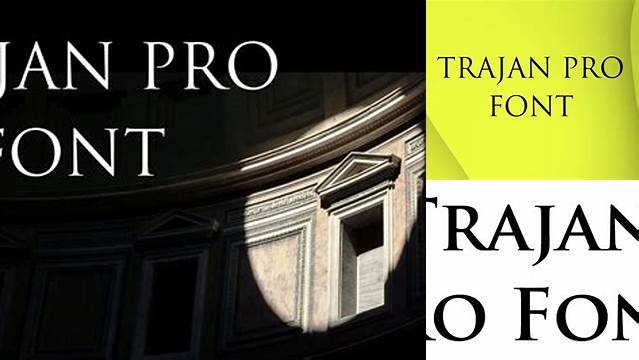
1. What is Trajan Pro Font?
Let's dive into what makes Trajan Pro Font so special, guys! This font isn't just another typeface; it's a piece of art. Inspired by the lettering on the base of Trajan's Column in Rome, designed by Carol Twombly in 1989, Trajan Pro exudes a sense of history, elegance, and authority. Think of it as the Roman Empire in font form! The strong and stately appearance makes it perfect for projects where you need to convey seriousness and importance. You'll often see it in movie posters, book covers, and even corporate branding where a touch of class is crucial. So, whether you're designing a poster for a historical epic or crafting a logo for a prestigious brand, Trajan Pro is your go-to font for making a lasting impression. It's all about capturing that timeless, authoritative feel, and Trajan Pro Font nails it every single time.
2. History and Inspiration Behind Trajan Pro
To really appreciate Trajan Pro Font, it's super important to understand its backstory. It all starts with Trajan's Column in Rome, a monumental structure erected in 113 AD to commemorate Emperor Trajan's victories in Dacia. The inscriptions at the base of the column are renowned for their perfectly proportioned and beautifully carved Roman square capitals. Carol Twombly, the brilliant designer behind Trajan Pro, drew direct inspiration from these ancient letterforms. She meticulously studied the shapes and proportions, translating them into a digital font that captures the essence of the original carvings. This historical connection gives Trajan Pro its unique character – a blend of ancient artistry and modern design. When you use this font, you're not just picking a typeface; you're tapping into centuries of history and craftsmanship. It's like having a piece of the Roman Empire in your design toolkit, perfect for adding a touch of timeless elegance and authority to any project where the goal is to create a memorable and impactful visual statement.
3. Key Characteristics of Trajan Pro Font
Okay, let's break down what makes the Trajan Pro Font stand out from the crowd. First off, it's an all-caps font, meaning it only has uppercase letters. This gives it a formal and commanding presence, perfect for headlines and titles. The serifs – those little feet at the ends of the strokes – are sharp and elegant, adding to its classic feel. The proportions are also key: the letters are wide and well-spaced, making them easy to read and giving them a sense of grandeur. But what really sets Trajan Pro apart is its timeless appeal. It manages to look both ancient and modern at the same time, making it incredibly versatile. Whether you're designing a movie poster, a book cover, or a logo, Trajan Pro can bring a touch of sophistication and authority. It's the kind of font that commands attention without being too flashy, which is why it's a favorite among designers looking to make a strong statement.
4. Common Uses of Trajan Pro in Design
So, where does Trajan Pro Font really shine in the design world? Well, its classic and authoritative look makes it a top pick for a ton of different projects. Think movie posters – especially historical dramas and epics – where it instantly conveys a sense of grandeur and importance. Book covers are another sweet spot; Trajan Pro lends an air of sophistication and timelessness, perfect for grabbing readers' attention. Corporate branding is yet another area where Trajan Pro Font excels. Many high-end brands use it in their logos and marketing materials to project a sense of prestige and reliability. You'll also spot it in wedding invitations, certificates, and other formal documents where a touch of elegance is a must. In short, Trajan Pro is your go-to font when you need to make a strong statement and convey a sense of quality and tradition. It's incredibly versatile, but it always brings that touch of class and authority to the table, making it a fantastic choice for designs that need to stand out.
7. Trajan Pro Alternatives: Free and Paid Options
If Trajan Pro Font's price tag is making your wallet weep, don't worry! There are plenty of fantastic alternatives out there that capture a similar vibe without the hefty cost. For free options, check out fonts like * высоким*. While it's not a direct copy, it shares that classic Roman capital feel with its elegant serifs and strong presence. Another solid choice is * высоким*. If you're willing to spend a bit, you can explore other premium fonts that offer a Trajan Pro-esque look. Fonts like высоким and высоким can provide a similar level of sophistication and authority. The key is to look for fonts with strong serifs, all-caps designs, and a classical influence. By exploring these alternatives, you can still achieve that timeless, elegant feel in your designs without breaking the bank. It's all about finding the right fit for your project and budget!
9. Using Trajan Pro in Adobe Photoshop
Let's get practical, guys! How do you actually use Trajan Pro Font in Adobe Photoshop? First things first, make sure you've got the font installed and activated (see the previous section if you're not sure how). Now, fire up Photoshop and open your project. Select the Type tool (that's the one that looks like a “T”) and click on your canvas to create a text layer. In the Character panel (Window > Character), you'll find the font selection dropdown. Scroll through or type “Trajan Pro” to find the font in the list. Select it, and boom! You're now typing in Trajan Pro. You can adjust the size, color, and other properties in the Character panel to get the look you want. Remember, Trajan Pro is an all-caps font, so it'll only display uppercase letters. It's fantastic for headlines, titles, and other text elements where you want to make a strong statement. Play around with different styles and effects to really make your text pop. Using Trajan Pro in Photoshop is a breeze, and it can add a touch of class and sophistication to your designs.
10. Using Trajan Pro in Adobe Illustrator
30. Is Trajan Pro Overused? The Debate
Let's tackle a hot topic in the design world: Is Trajan Pro Font overused? It's a valid question, guys, because this font has been incredibly popular for decades. Its frequent use in movie posters, book covers, and logos has led some designers to feel that it's become a bit cliché. On the one hand, Trajan Pro's timeless elegance and authority are undeniable. It's a classic for a reason, and it can still be a fantastic choice for certain projects. However, using it without careful consideration can make your design feel generic or uninspired. The key is to use Trajan Pro thoughtfully and strategically. If you're using it simply because it's a